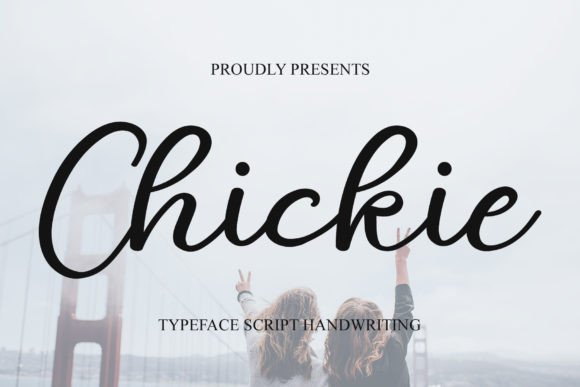
Introducing Chickie Font: The Ultimate Script Font for Your Creative Projects
Are you a designer or crafter looking for a stylish and dainty script font to elevate your creative projects? Look no further than Chickie Font! This beautiful script font is perfect for a wide range of applications, from logos and branding projects to labels, photography, watermarks, and special events. With its elegant and refined aesthetic, Chickie Font is sure to add a touch of sophistication and glamour to any project.
What Makes Chickie Font So Special?
Chickie Font is a carefully crafted script font that boasts a range of features that make it stand out from the crowd. Here are just a few reasons why designers and crafters love Chickie Font:
- Stylish and Dainty: Chickie Font is a beautifully designed script font that exudes elegance and refinement. Its dainty strokes and delicate curves make it perfect for projects that require a touch of sophistication.
- Versatile: Chickie Font is suitable for a wide range of projects, from logos and branding projects to labels, photography, watermarks, and special events. Its versatility makes it a great addition to any designer’s or crafter’s toolkit.
Uses for Chickie Font
So, what can you use Chickie Font for? The possibilities are endless! Here are just a few ideas to get you started:
- Logos and Branding Projects: Chickie Font is perfect for creating beautiful logos and branding materials that require a touch of elegance and sophistication.
- Labels and Packaging: Add a touch of glamour to your labels and packaging with Chickie Font. Its dainty strokes and delicate curves make it perfect for food labels, product packaging, and more.
- Photography: Use Chickie Font to add a touch of elegance to your photography. Its beautiful script style is perfect for watermarks, photo captions, and more.
- Special Events: Chickie Font is perfect for special events like weddings, baby showers, and more. Use it to create beautiful invitations, programs, and other event materials.
Tips for Using Chickie Font
Here are a few tips for getting the most out of Chickie Font:
- Experiment with Different Sizes: Chickie Font looks great in a range of sizes, from small and delicate to large and bold. Experiment with different sizes to find the one that works best for your project.
- Pair it with Other Fonts: Chickie Font pairs beautifully with a range of other fonts. Try pairing it with a bold sans-serif font for a striking contrast.